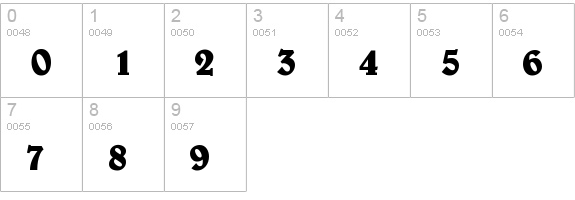
Barrister SSi Bold is a strong, high-contrast variant in the Barrister typeface family \xE2\x80\x94 well suited to headlines, attention-grabbing titles, and strong calls-to-action.
Barrister SSi Bold font is a sleek and sophisticated typeface that exudes elegance and professionalism. With its bold strokes and sharp edges, this font is perfect for creating eye-catching headlines and attention-grabbing designs. Whether you're working on a print project or a digital design, Barrister SSi Bold font will make your text stand out with its bold presence. And the best part? Barrister SSi Bold font is available for free download at FontsMarket.com. Yes, you read that right - you can get your hands on this stunning font without spending a penny. So why wait? Elevate your designs with Barrister SSi Bold font today and make a lasting impression with your typography choices.